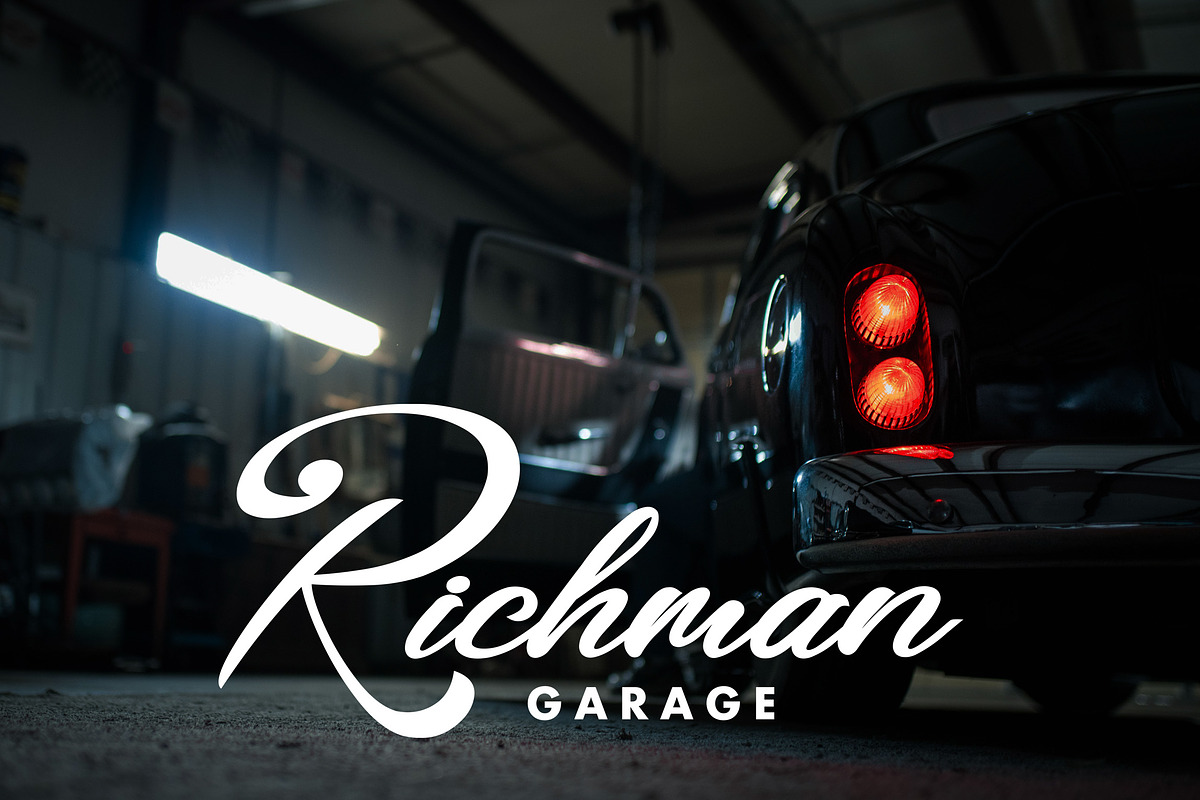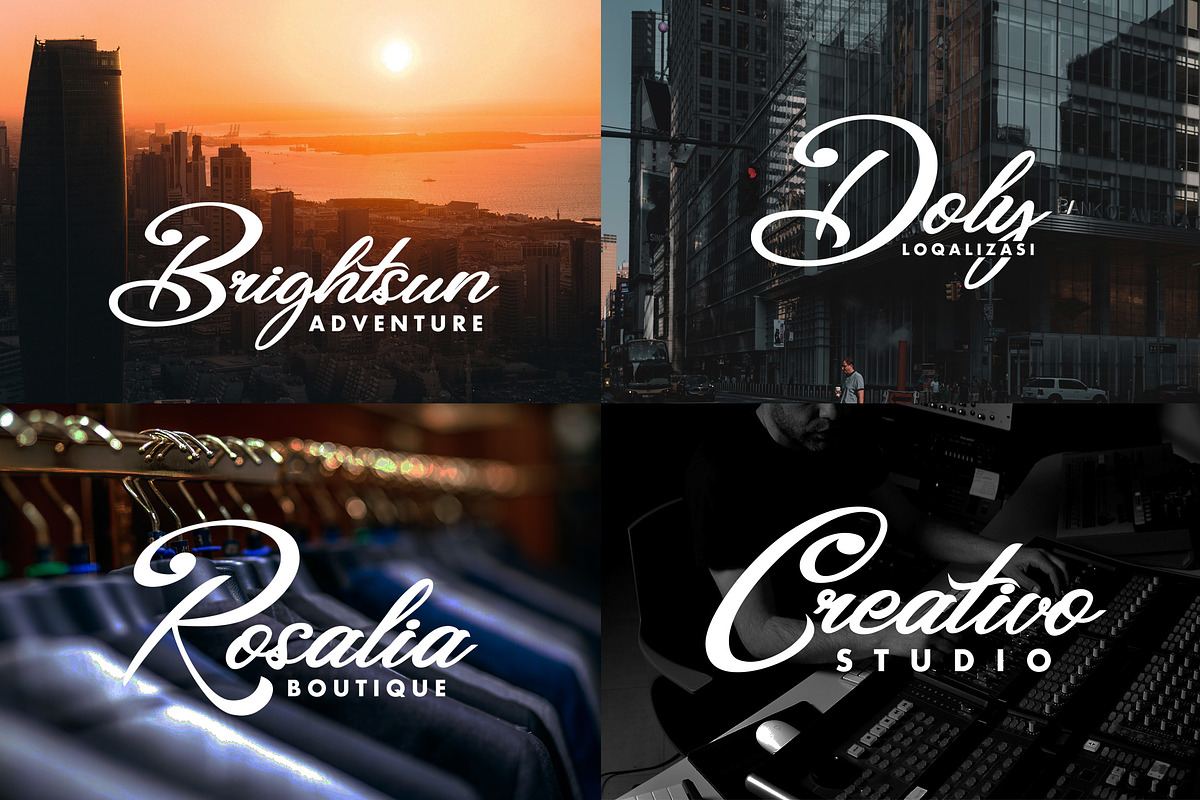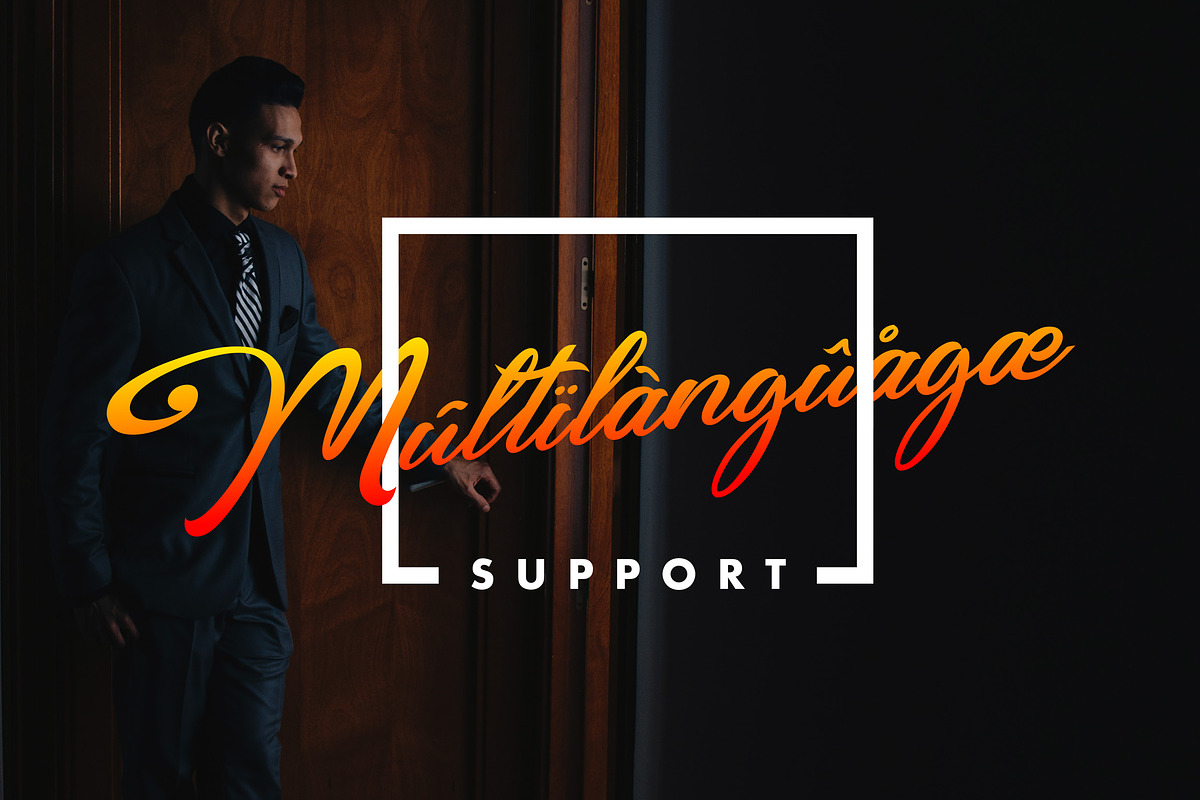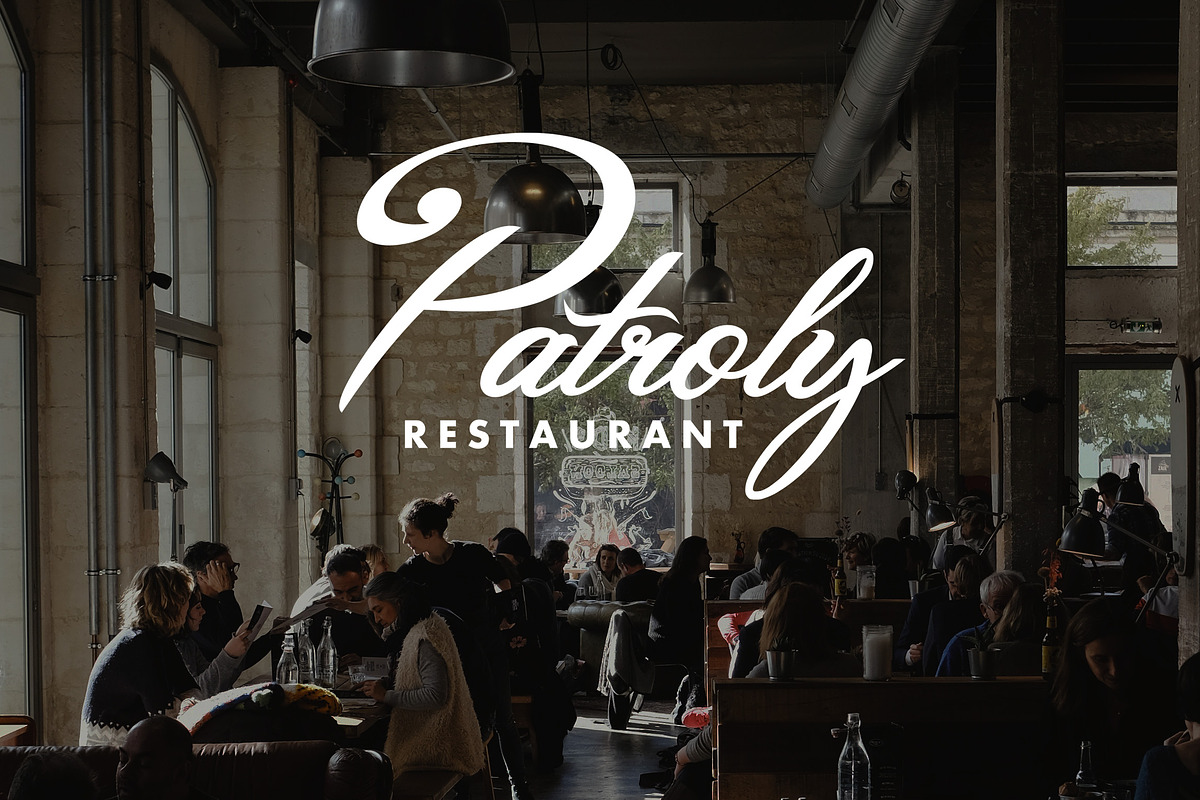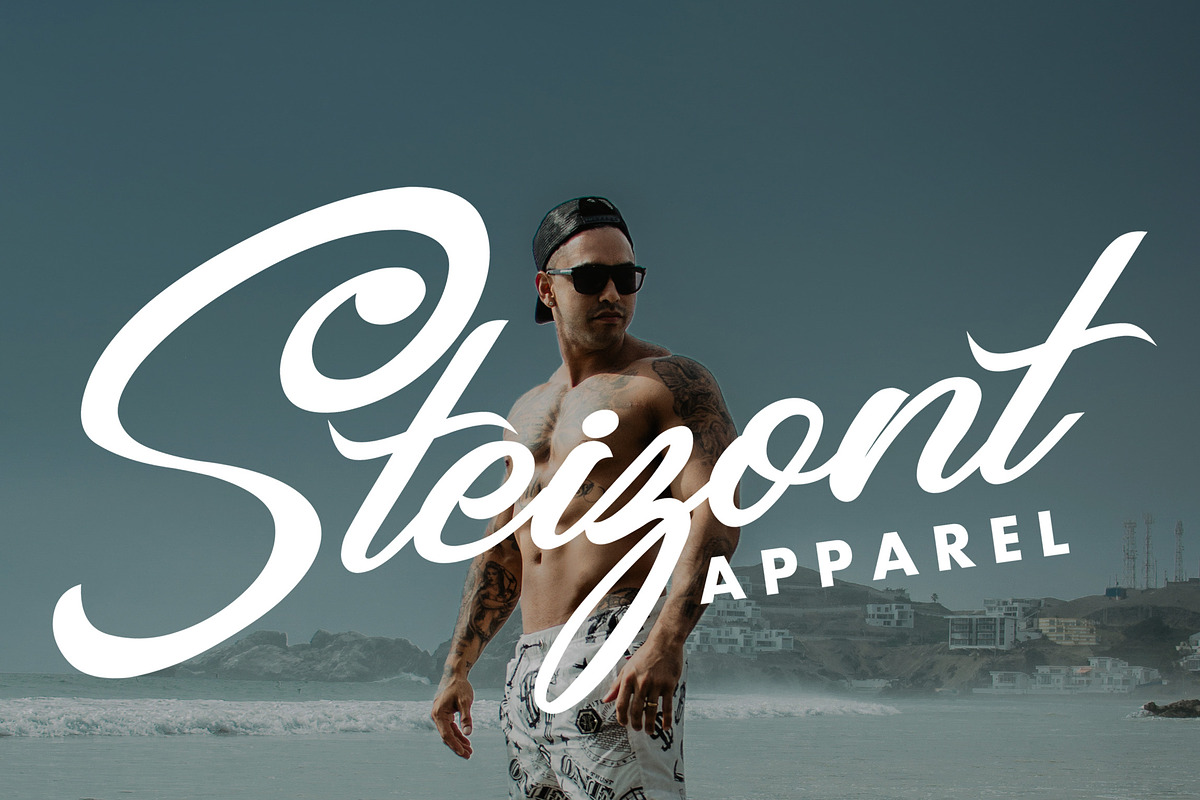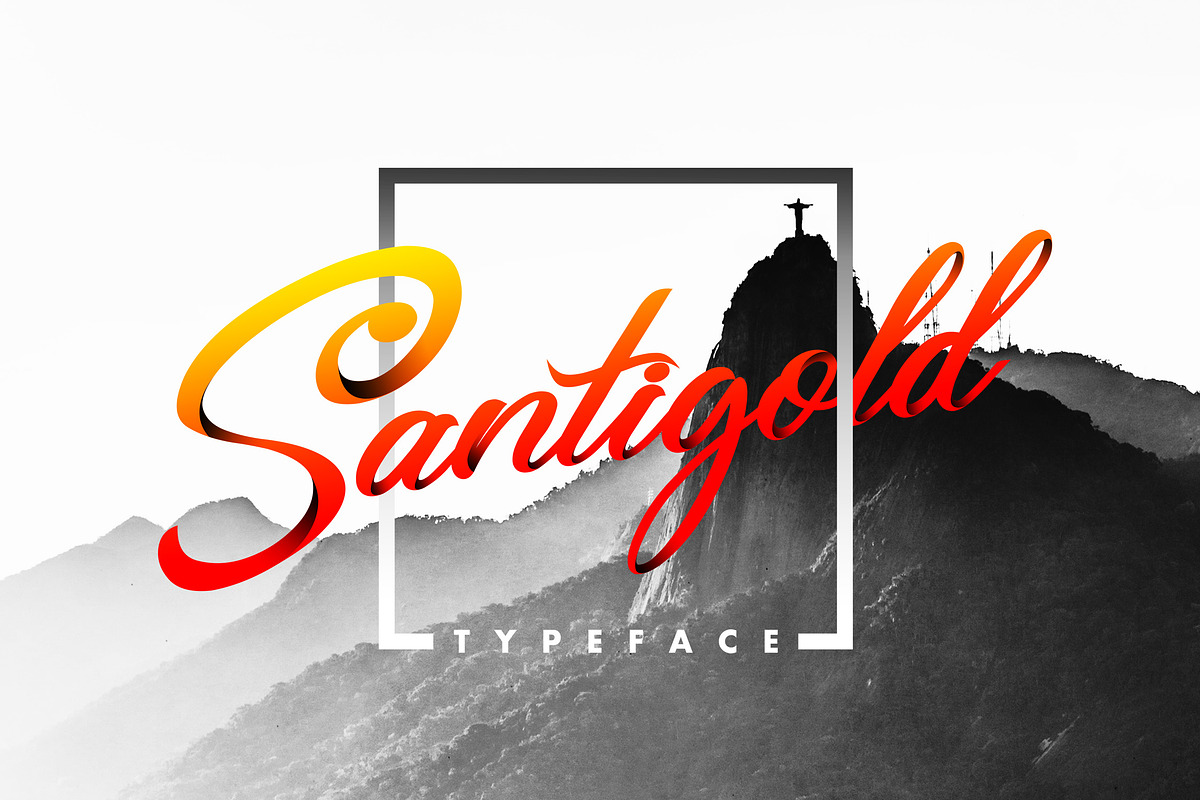
Santigold Typeface
Santigold is a script typeface with personality. You can use it as a logo, badge, insignia, packaging, headline, poster, t-shirt/apparel, greeting card, and even wedding invitation. The flowing characters are ideal to make an attractive messages, mix and match Montana with sans serif font is recomended to fit your project.
- The flowing characters are ideal to make an attractive messages, mix and match Montana with sans serif font is recomended to fit your projec
- Have some ligature to make natural flow of the text.
Why Santigold Typeface is worth a look
Santigold Typeface by 160 Studio fits naturally into Branding, posters, packaging, typography.